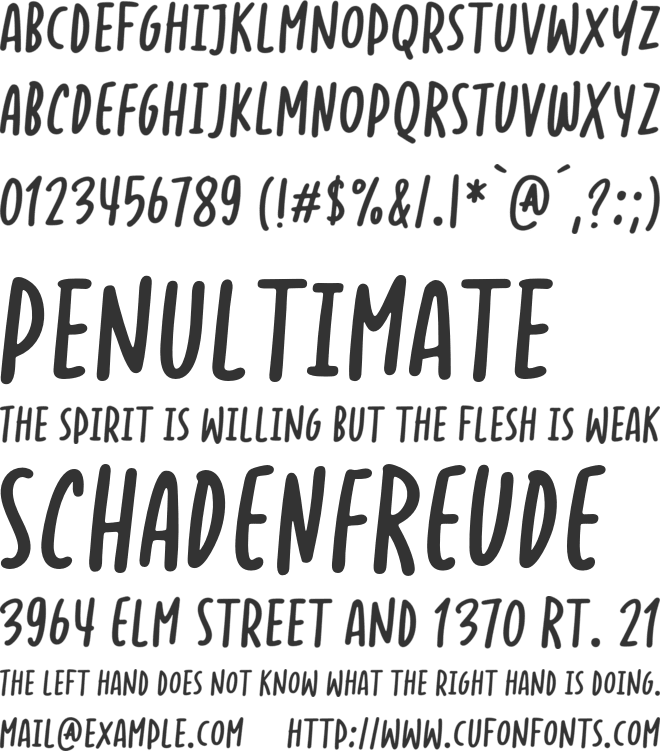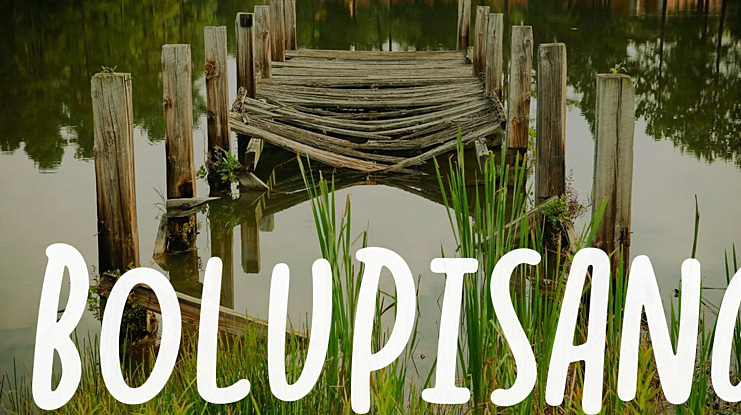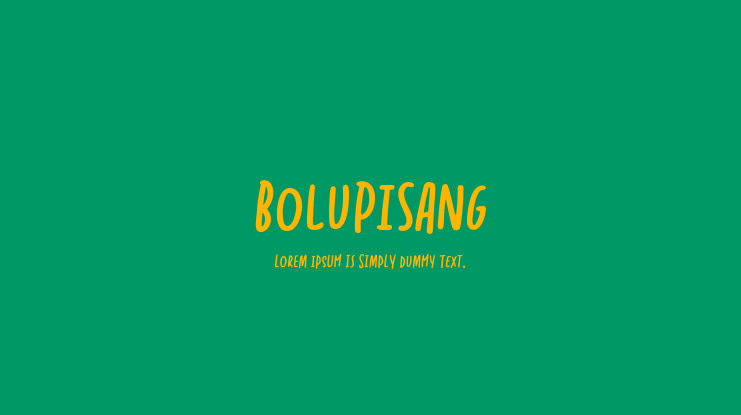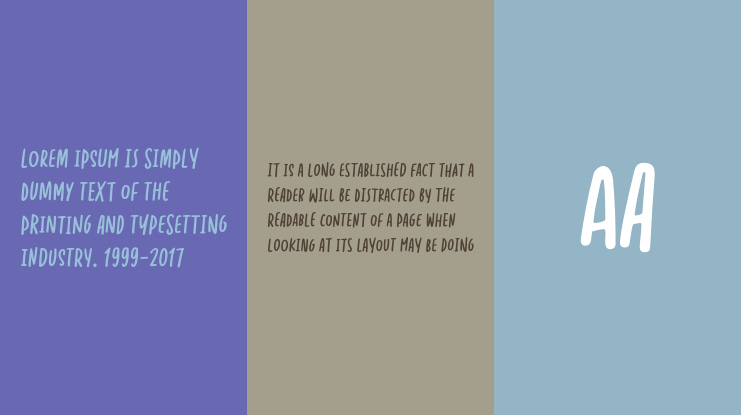
Bolupisang Font
Bolupisang is an attractive handwritten font that draws inspiration from a playful marker style. The standout feature of Bolupisang is its remarkable versatility. With six distinct alternatives for each letter, the transitions as you type are seamless, injecting a dynamic and spontaneous feel into your designs.
When it comes to all things fun and creative, Bolupisang is the font you need. Whether you are designing for children, adding a touch of whimsy to comics, creating eye-catching posters, or sharing inspiring quotes, Bolupisang effortlessly adapts to your requirements. Its organic and ever-changing appearance brings a playful spirit to your work, ensuring your designs are truly unique.